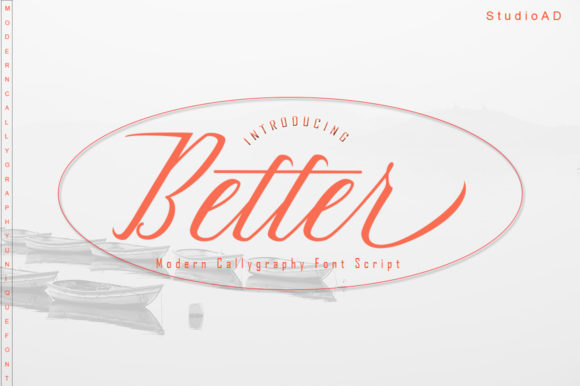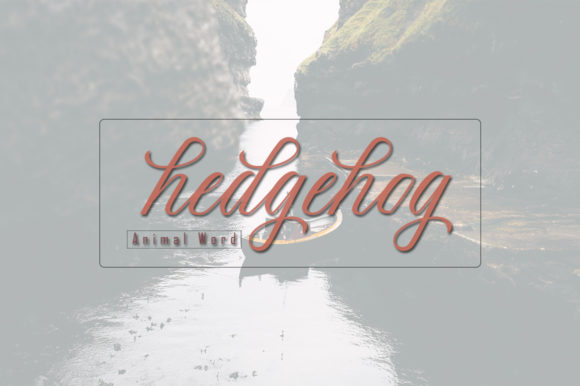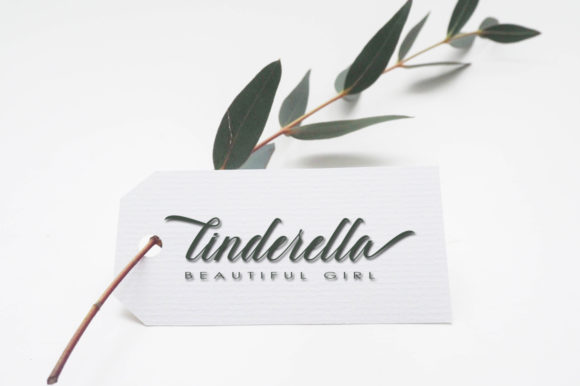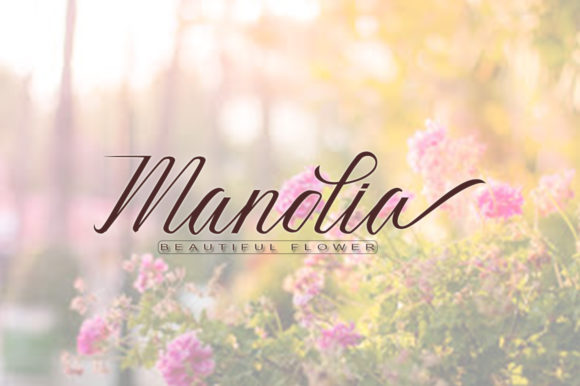
Better Font
About Better Font
Better is an incredibly fun and cool handwritten font with a unique feel. It will turn any design idea into an eye-catcher!